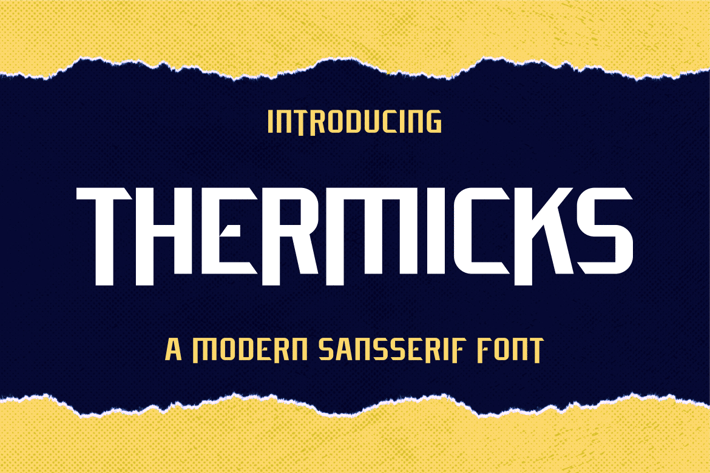
Thermicks Font
Proudly present our new product Thermicks Font
Thermicks Font is a modern and authentic font. Perfect for both professional and branding needs of a product. This font is suitable for any branding project like quotes, logo, blog header, poster, banding, letter, invitation, stationery, etc... Designed as a versatile and flexible that can be used on a range of projects and mediums. outstanding in a wide range of contexts.